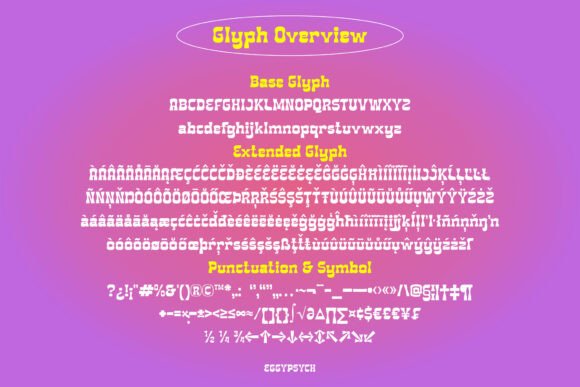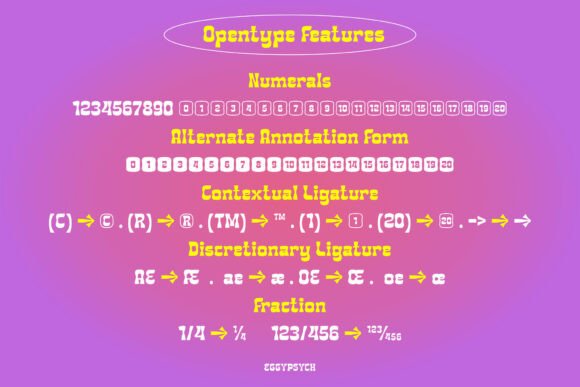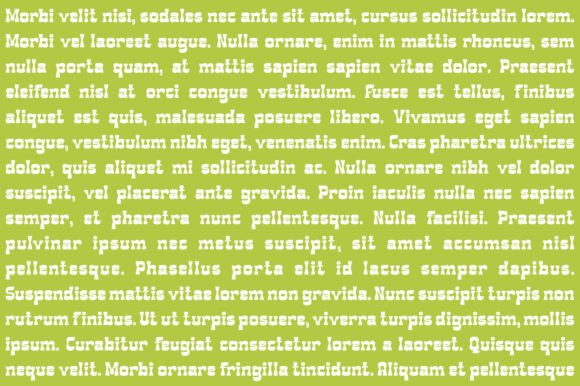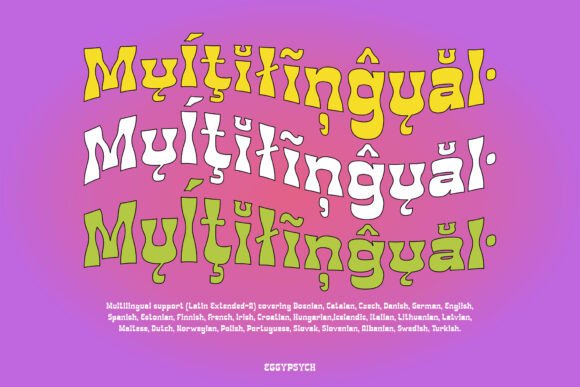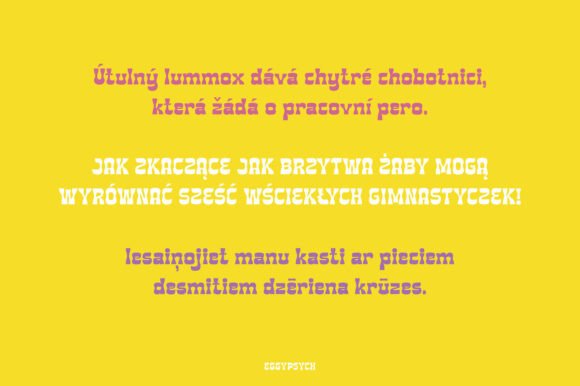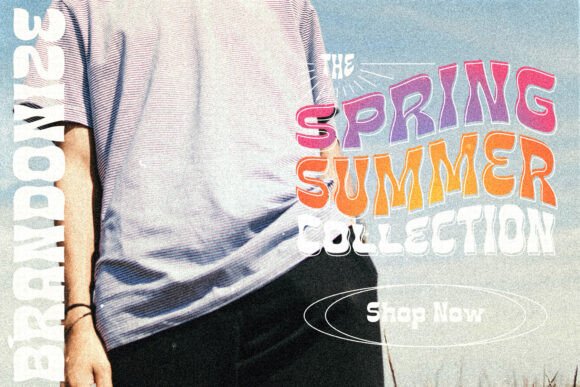
Introducing EggyPsych: The Funky, Fun, and Bold Display Font of Your Dreams
Are you tired of using the same old fonts in your designs? Do you want to add a touch of psychedelic flair to your posters, album covers, or craft projects? Look no further than EggyPsych, a groovy and eye-catching display font that’s sure to transport you back to the fabulous 1970s.
What is EggyPsych?
EggyPsych is a bold, funky, and fun display font that’s designed to bring a playful, wavy vibe to your designs. Its unique, psychedelic letters are perfect for creating a retro look that’s sure to turn heads. Whether you’re a designer, crafter, or DIY enthusiast, EggyPsych is the perfect addition to your font collection.
Key Features of EggyPsych
- Psychedelic vibe: EggyPsych’s wavy, playful letters are inspired by the psychedelic art of the 1970s, making it perfect for creating a retro look.
- Bold and eye-catching: This font is designed to make a statement, with bold, chunky letters that are sure to grab attention.
- Versatile: EggyPsych is perfect for a wide range of design projects, from posters and album covers to craft projects and DIY signage.
Uses for EggyPsych
EggyPsych is a versatile font that can be used for a wide range of design projects, including:
- Posters: Create eye-catching posters for concerts, festivals, or events with EggyPsych’s bold, psychedelic letters.
- Album covers: Give your music a retro vibe with EggyPsych’s groovy, wavy font.
- Craft projects: Add a touch of psychedelic flair to your craft projects, such as scrapbooking, card making, or DIY signage.
- Branding: Use EggyPsych to create a bold, eye-catching brand identity that’s sure to stand out.
Tips for Using EggyPsych
Here are a few tips for getting the most out of EggyPsych:
- Experiment with colors: EggyPsych looks great in bold, bright colors, so don’t be afraid to get creative with your color palette.
- Play with textures: Add some extra depth and interest to your designs by experimenting with different textures and patterns.
- Mix and match: Combine EggyPsych with other fonts and design elements to create a unique, eye-catching look.
If you’re looking for a font that’s fun, funky, and bold, look no further than EggyPsych. With its psychedelic vibe and playful, wavy letters, this font is perfect for creating a retro look that’s sure to turn heads. Whether you’re a designer, crafter, or DIY enthusiast, EggyPsych is a great addition to your font collection. So why wait? Download EggyPsych today and start creating your own groovy designs!